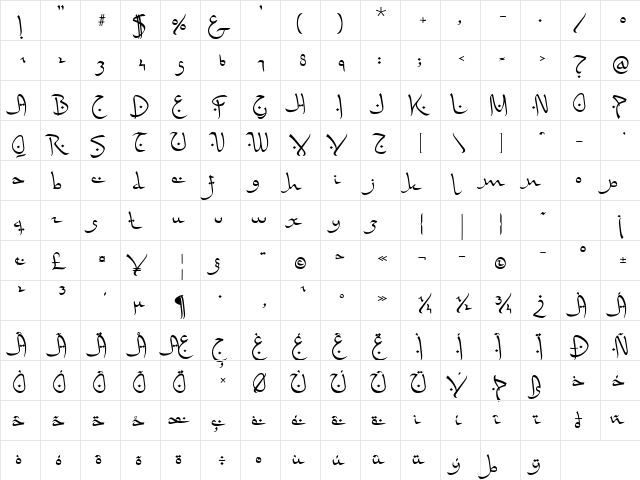
FalafelRegularSwash Regular Font Preview
FalafelRegularSwash Regular
FalafelRegularSwash Regular Font Details
Design Context for FalafelRegularSwash Typeface
FalafelRegularSwash brings a calligraphic fluidity to the page — its connecting strokes and expressive curves give it an unmistakably human quality.
Font Pairing: Combine FalafelRegularSwash with a simple geometric sans for maximum contrast — the tension between flowing curves and clean structure is a classic typographic pairing.
Pro Tip: Use FalafelRegularSwash for short runs of text — names, titles, or taglines. Extended body copy in script faces tires the eye quickly.